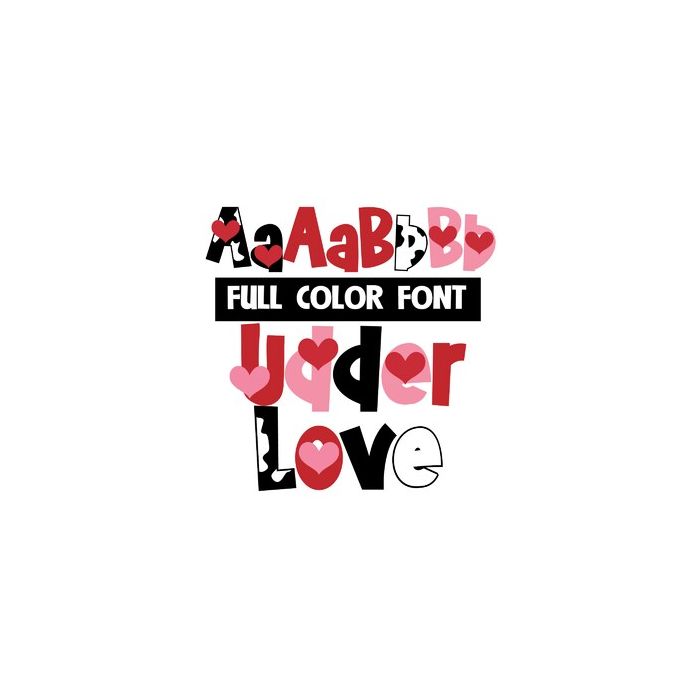
This full-color font features hearts, cowprint, and whimsical lettering. There is an alt case with additional colors that you can access through your system or Silhouette's glyph map.